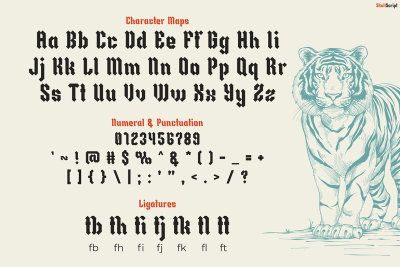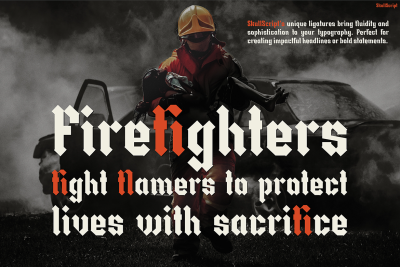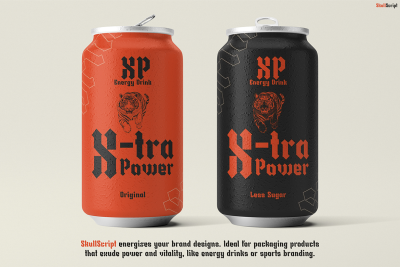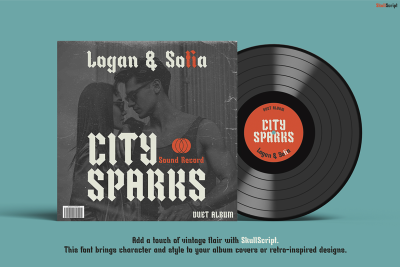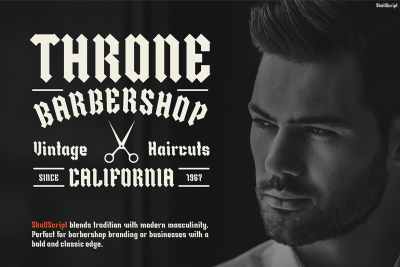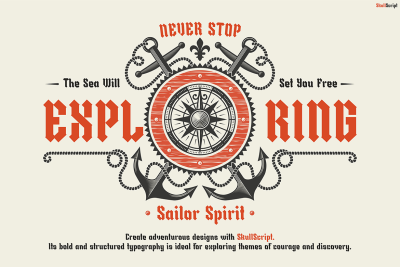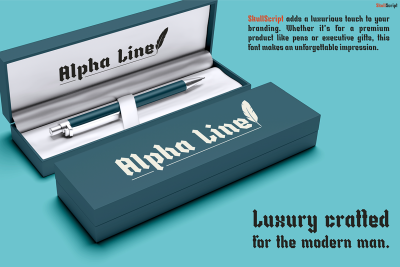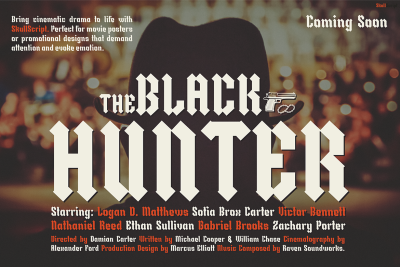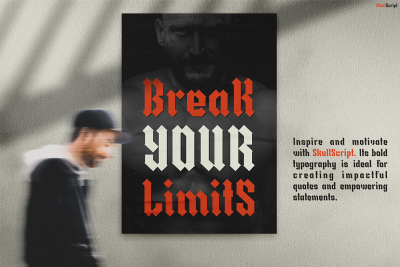
Tattoo Font Skullscript is a bold typeface that seamlessly blends vintage charm with a modern edge. Inspired by Gothic calligraphy and traditional tattoo lettering, it offers timeless sophistication. Moreover, its sharp, angular shapes and bold strokes create a dramatic and impactful look. This font is perfect for projects that demand a strong and expressive visual identity.
In addition to its striking design, Skullscript combines traditional typography with a contemporary twist, making it highly versatile. Its intricate details and sharp contrasts not only enhance readability but also deliver a commanding presence. For instance, you can use it for album covers, retro-inspired posters, or branding for tattoo studios. Furthermore, the mix of vintage aesthetics and modern usability makes it a standout choice for designs that need to capture attention.
Additionally, this fontโs robust structure ensures it works well across digital and print media. From sleek digital graphics to high-quality prints, Skullscript adapts seamlessly. Therefore, it becomes a powerful tool for designs that aim to leave a lasting impression while maintaining visual clarity.
Tattoo Font Skullscript Suitable For
Tattoo Font Skullscript is ideal for creatives and brands that want to combine tradition and modernity. Specifically, it excels in the following areas:
- Tattoo Artists and Studios
Skullscript is an excellent choice for tattoo studios with a bold, Gothic aesthetic. Its strong design works perfectly for logos, signage, and marketing materials. Moreover, it captures the artistry and craftsmanship that define tattoo culture. - Music and Album Covers
Skullscript adds a sense of nostalgia and drama to album covers. Additionally, it works particularly well for rock, metal, or retro-themed projects. Its bold strokes give depth and character to your visuals, making them stand out. - Vintage and Retro Branding
For branding projects requiring a retro touch, Skullscript shines. For example, it enhances posters, packaging, and merchandise with a classic yet edgy feel. Furthermore, its balance of elegance and intensity appeals to vintage design enthusiasts. - Fashion and Apparel
Fashion brands can incorporate Skullscript into their designs for a bold and creative look. Therefore, itโs perfect for graphic tees, labels, and alternative marketing campaigns. Its unique style emphasizes rebellion and individuality. - Creative Designers
Designers can rely on Skullscript to add flair to custom projects. For instance, itโs great for invitations, event posters, or typographic art. Moreover, its Gothic style is perfect for themes that demand boldness and creativity.
In conclusion, Tattoo Font Skullscript merges vintage Gothic charm with bold modern design. Moreover, whether for tattoo branding, album covers, or apparel, this font guarantees both style and impact.